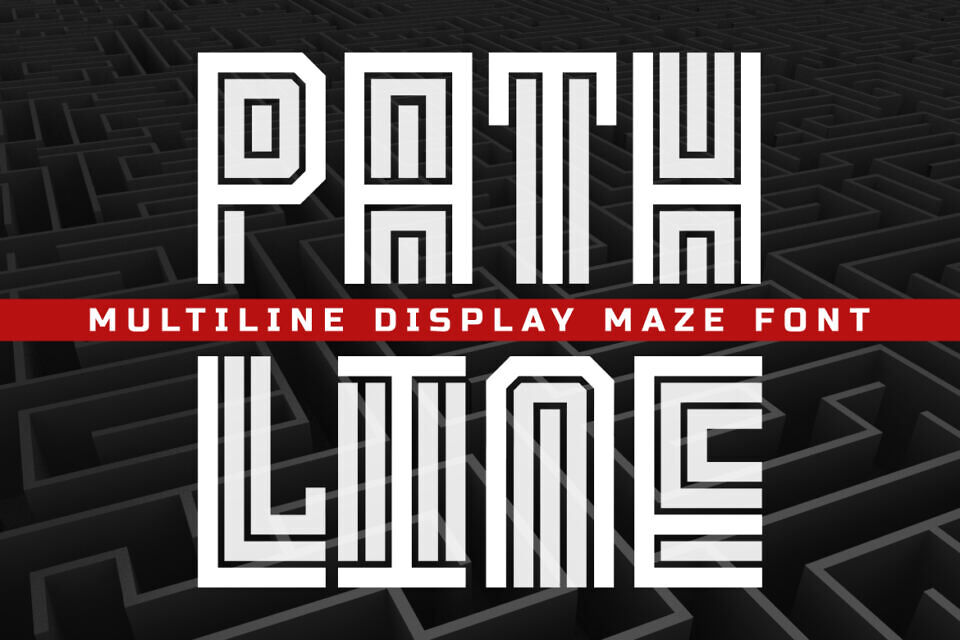
Pathline Font
Pathline is a bold display font inspired by labyrinths, puzzle grids, and maze architecture. The design showcases clean, high-contrast lines arranged in a multilayered format that mimics paths within a structured maze.
Each character is constructed with stacked vertical and horizontal bars, providing a sense of movement and depth. The glyphs feel dynamic and complex, yet surprisingly readable, making them ideal for impactful titles, editorial layouts, or visual storytelling.
With uppercase, lowercase, numbers, and punctuations, this font delivers flexibility for various creative projects. Its futuristic edge and symmetrical form make it suitable for mystery posters, conceptual branding, or album art.